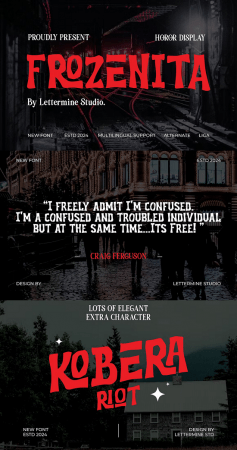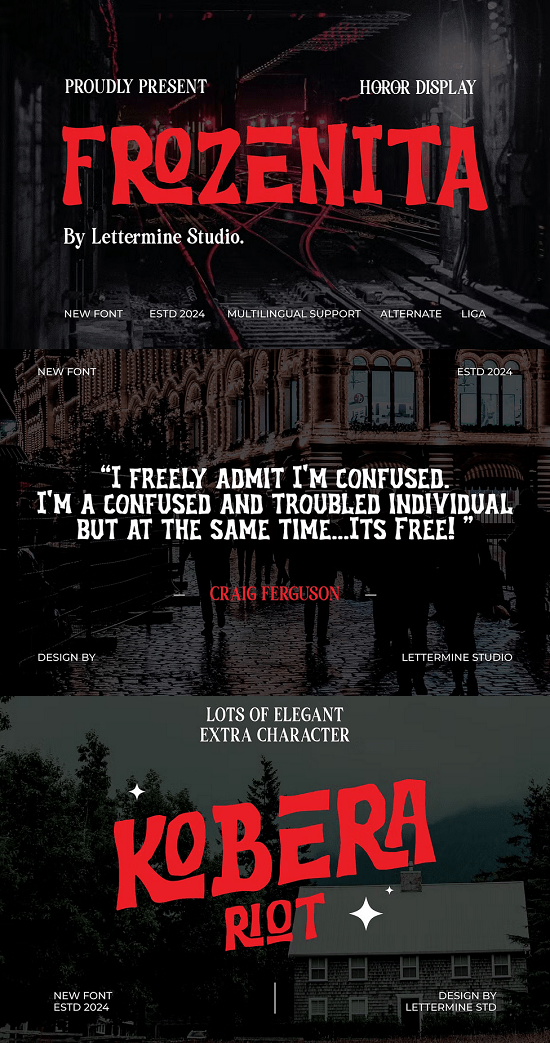
Elevate your design game with FROZENITA, a captivating handwriting font designed to add a chilling touch to your projects. Crafted with meticulous detail, this font boasts a perfect blend of horror-inspired aesthetics and sleek handwritten charm.
Ligatures: Enhance the authenticity of your text with seamless ligatures that effortlessly connect characters.
Alternatives:Unlock creative possibilities with alternate characters, allowing you to customize your text for a unique look.
Multilingual Support: Reach a global audience with extensive multilingual support, ensuring your message is understood worldwide.
Uppercase & Lowercase: Enjoy versatility in your designs with both uppercase and lowercase characters at your disposal.
Punctuation: Ensure precision in your typography with comprehensive punctuation marks included.